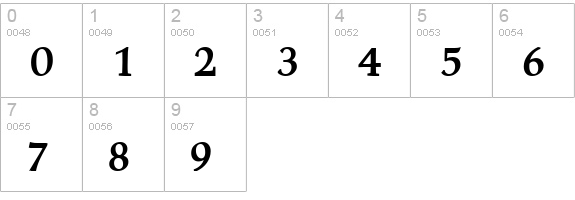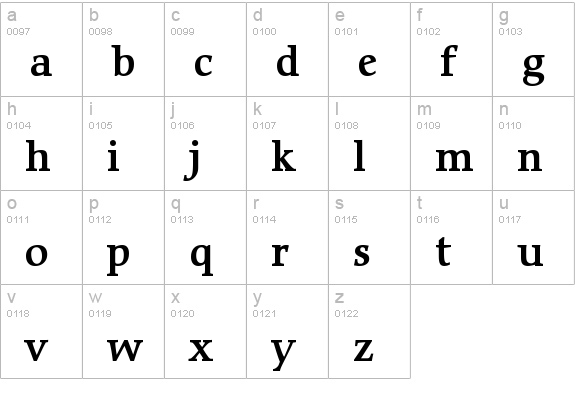
Carmine Bold is a strong, high-contrast variant in the Carmine typeface family \xE2\x80\x94 well suited to headlines, attention-grabbing titles, and strong calls-to-action.
Carmine Bold font is a striking display typeface that exudes elegance and sophistication. Its bold and confident letterforms make it perfect for headlines, titles, and branding projects that require a strong and commanding presence. With its sharp serifs and clean lines, Carmine Bold is sure to make a lasting impression on any design project. The best part? Carmine Bold font is available for free download at FontsMarket.com. This means you can add this stylish typeface to your font collection without breaking the bank. Whether you're a designer looking to elevate your typography game or a business owner in need of a distinct and memorable font for your branding, Carmine Bold has you covered. Don't miss out on this amazing opportunity to enhance your designs with this premium font – download Carmine Bold for free today!